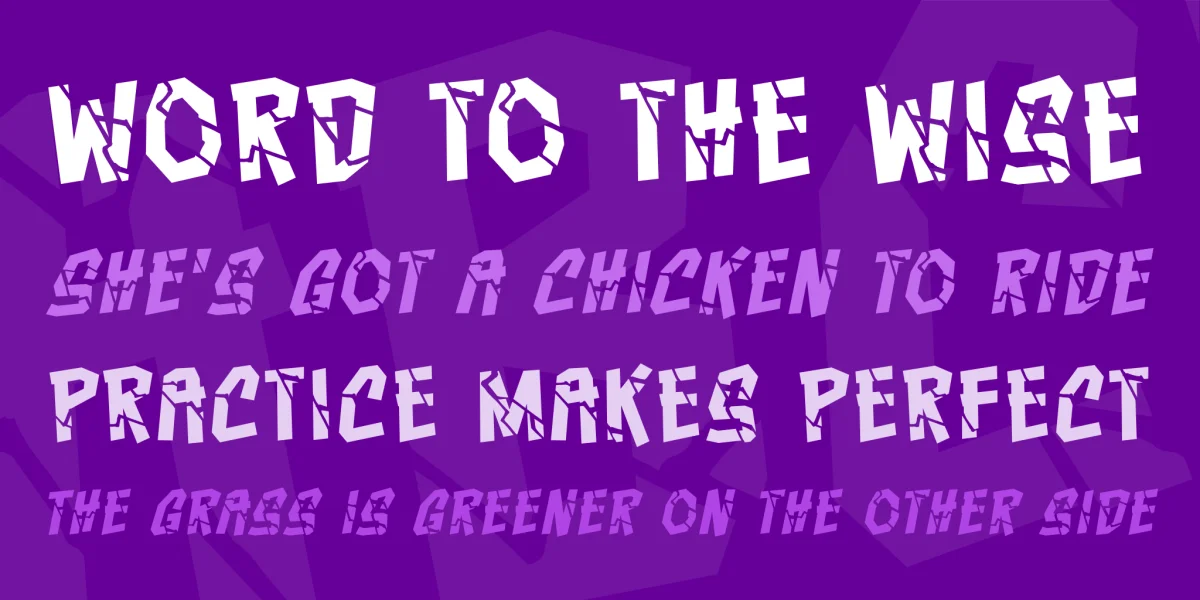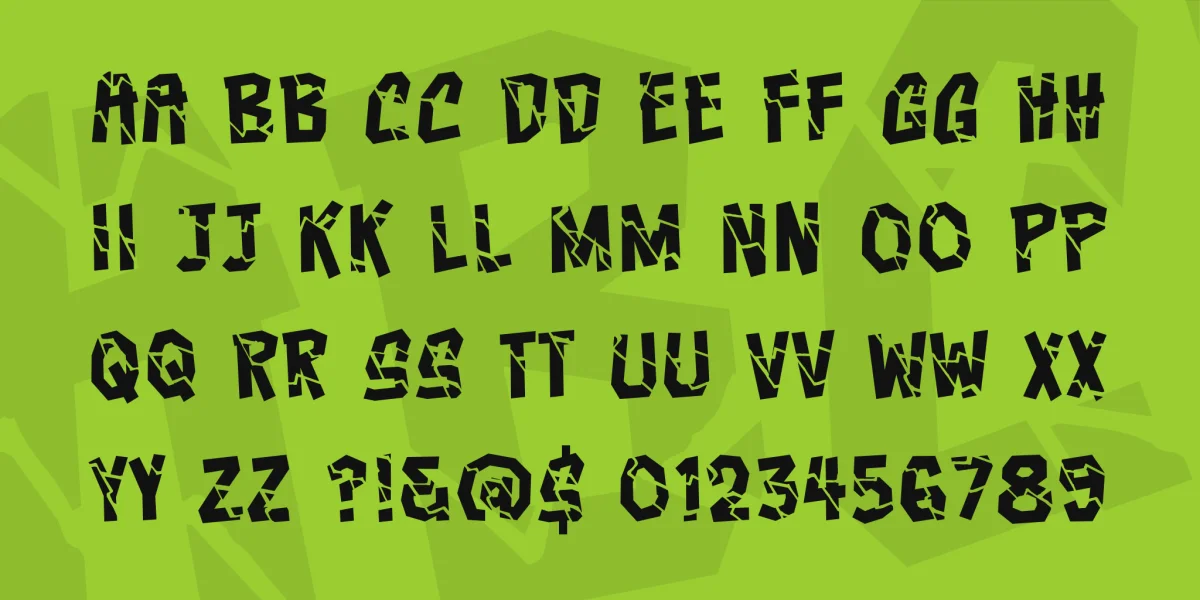
CRASHCOURSE BB is a tall, chunky sound effects font that's been smashed to bits. It's cracked and splintered for BIG sound effects. Comes with Regular and Italic and the upper and lowercase characters have varied crack patterns.